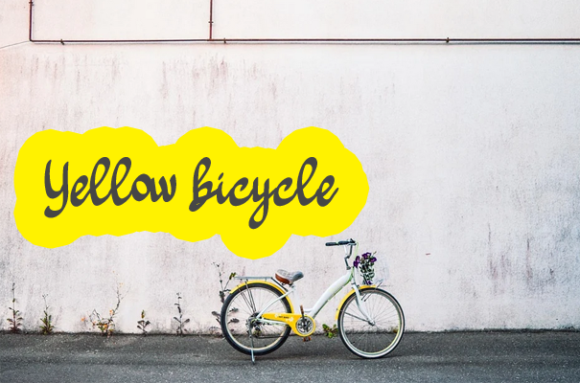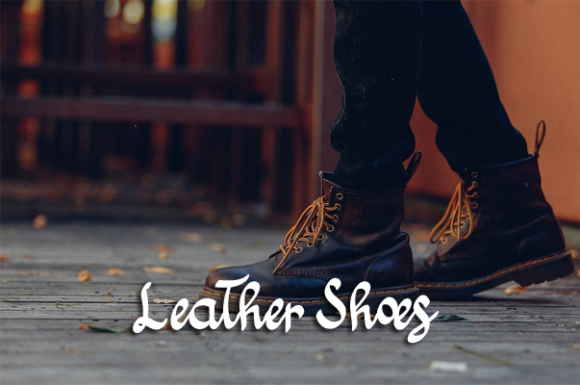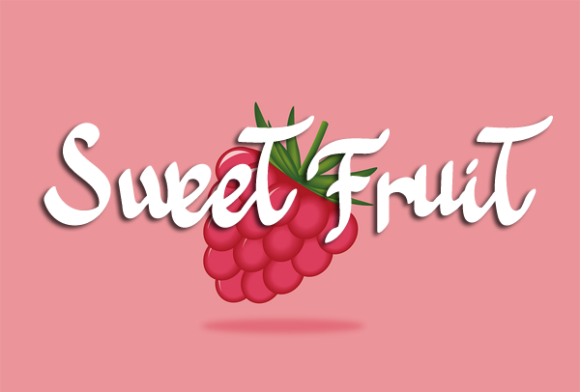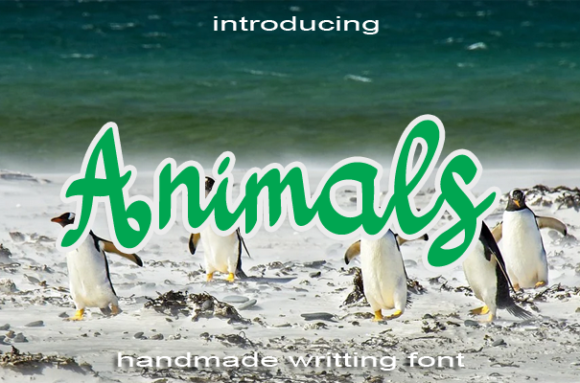
Introducing Animals Font: The Perfect Handwritten Font for Kids’ Projects
Are you a designer, crafter, or educator looking for a fun and playful font to add a personal touch to your kids’ projects? Look no further than Animals Font! This cool, flowing, and friendly handwritten font is perfect for any children activity or school project that requires a dash of personality and whimsy.
What Makes Animals Font So Special?
Animals Font embodies playfulness and authenticity, making it an ideal choice for projects that require a lighthearted and youthful touch. Its flowing script and rounded edges give it a friendly and approachable feel that’s sure to delight kids and adults alike. Whether you’re creating a worksheet, a poster, or a craft project, Animals Font is the perfect choice to add a splash of fun and creativity.
Key Features of Animals Font
- Playful and Whimsical: Animals Font is designed to bring a sense of playfulness and fun to your projects. Its unique and irregular shapes make it perfect for kids’ projects that require a dash of personality.
- Handwritten Style: This font boasts a beautiful, handwritten style that’s perfect for adding a personal touch to your projects.
- Easy to Read: Despite its playful nature, Animals Font is surprisingly easy to read, making it perfect for use in educational materials, worksheets, and activity sheets.
- Versatile: Animals Font can be used for a wide range of projects, from posters and flyers to worksheets and craft projects.
Why Designers and Crafters Love Animals Font
Designers and crafters love Animals Font for its versatility and flexibility. Whether you’re creating digital or print materials, this font can be used to add a touch of whimsy and personality to your projects. Its unique style makes it perfect for:
- Kids’ Party Invitations: Create custom party invitations that set the tone for a fun and playful celebration.
- Educational Materials: Use Animals Font to create engaging and interactive educational materials, such as worksheets, activity sheets, and posters.
- Craft Projects: Add a personal touch to your craft projects, such as handmade cards, gift tags, and DIY decorations.
- Digital Products: Use Animals Font to create digital products, such as printables, planners, and journals.
Tips for Using Animals Font Effectively
To get the most out of Animals Font, here are some tips to keep in mind:
- Use it Sparingly: While Animals Font is playful and fun, it can be overwhelming if used excessively. Use it sparingly to add a touch of personality to your projects.
- Pair it with Other Fonts: Experiment with pairing Animals Font with other fonts to create visual interest and contrast.
- Adjust the Size: Adjust the size of Animals Font to create visual hierarchy and emphasize important information.
Animals Font is a unique and versatile font that’s perfect for designers, crafters, and educators looking to add a touch of playfulness and personality to their kids’ projects. With its flowing script, rounded edges, and whimsical style, this font is sure to delight kids and adults alike. Whether you’re creating educational materials, craft projects, or digital products, Animals Font is the perfect choice to bring a sense of fun and creativity to your work.